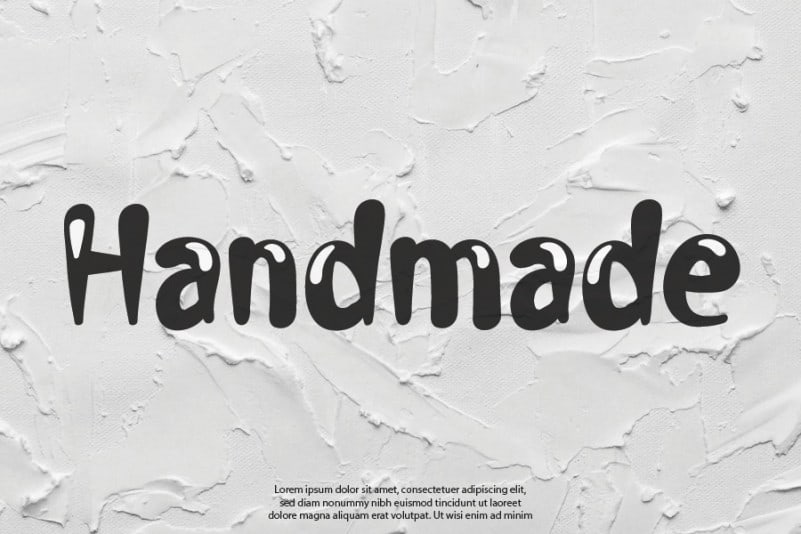
Ballon Quago Display Font
Ballon Quago Display Font is a bold and incredibly unique display font. Its friendly style makes this font very versatile, fitting a wide pool of contexts. Fall in love with Ballon Quago and create outstanding designs!
The latest style letters are perfect for wall displays, wedding invitations, social media post logos, advertisements, product packaging, product designs, labels, photography, watermarks, invitations, stationery, and any project that requires taste handwriting.